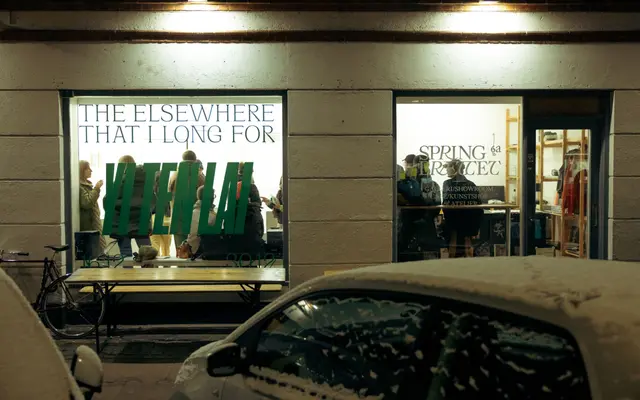
Cirka
Pangram Foundry · Nick Losacco · 2019
A vertical-axis serif with sharply pointed, flamboyant serifs drawn by Nick Losacco, citing the geometric drama of Italian supercar design as its reference point.
Five weights from Light to Bold, available as a variable font, with classic upright construction undercut by razor-sharp terminals and pointed serifs that give headlines a distinct edge. The contrast between restrained letterform proportions and those aggressive serifs makes it suited to fashion branding, luxury packaging and editorial work where elegance with bite is needed. Glyph coverage extends across Latin Extended, supporting over 30 languages including Czech, Polish and Romanian.
Vertical-axis construction with high contrast and sharply pointed, flamboyant serifs distinguish Cirka from conventional transitional designs, pushing it toward expressive display territory while retaining traditional letterform proportions.